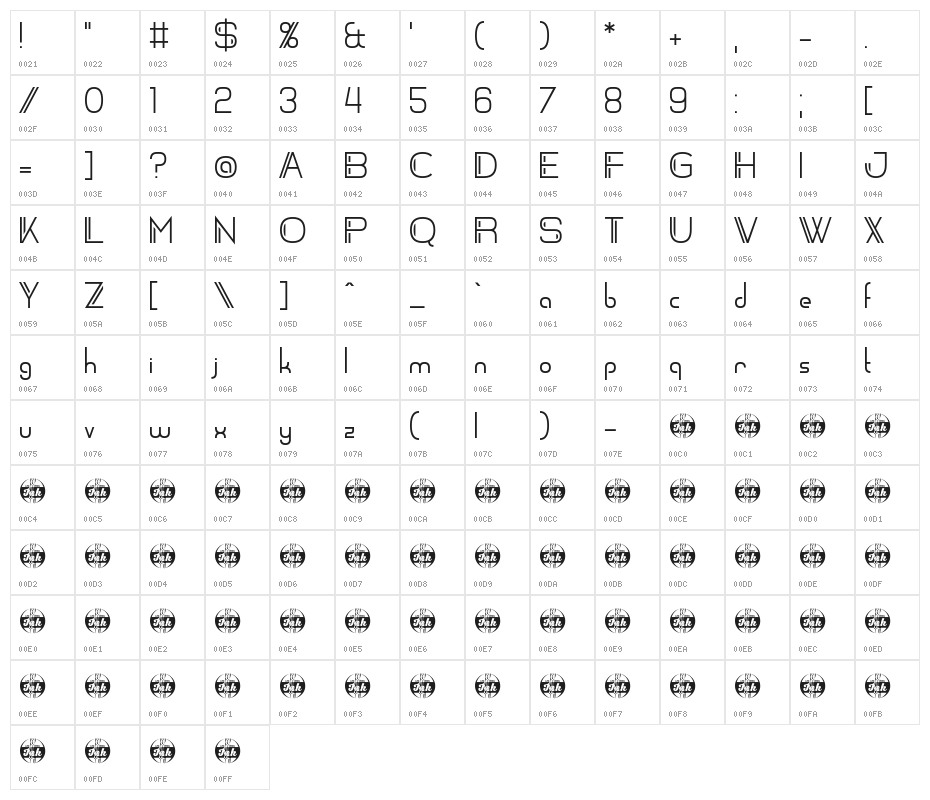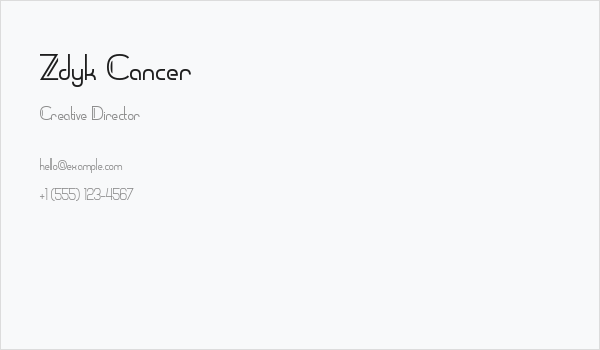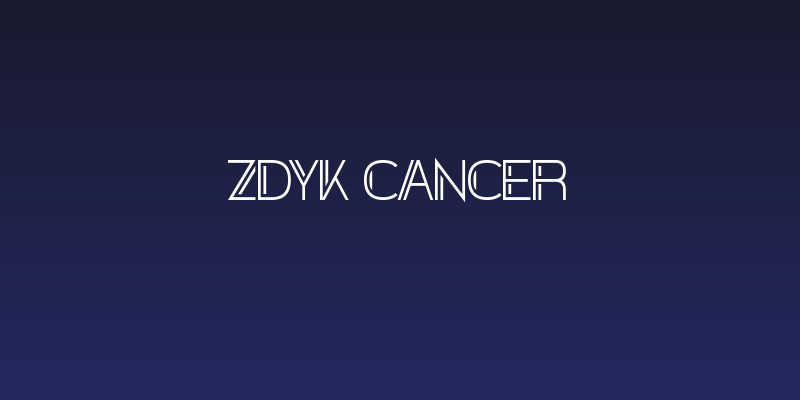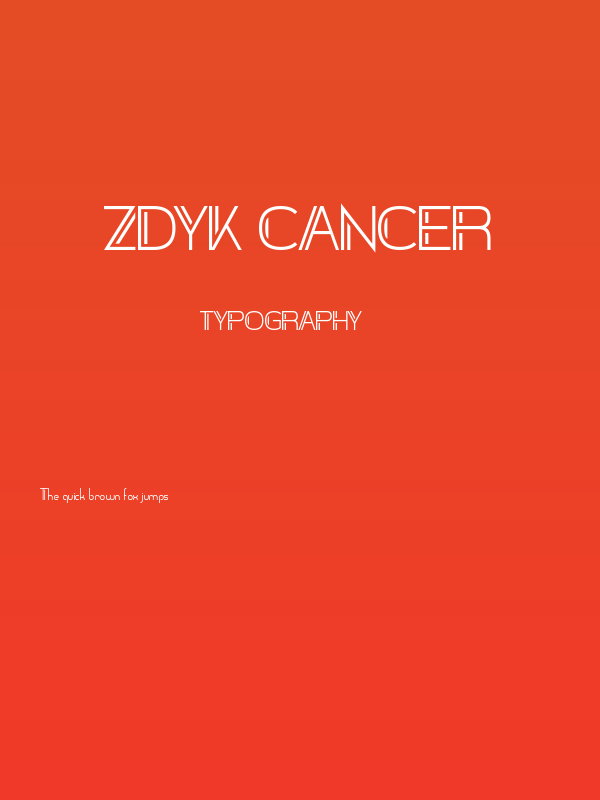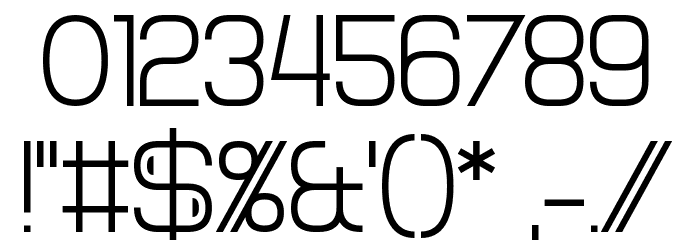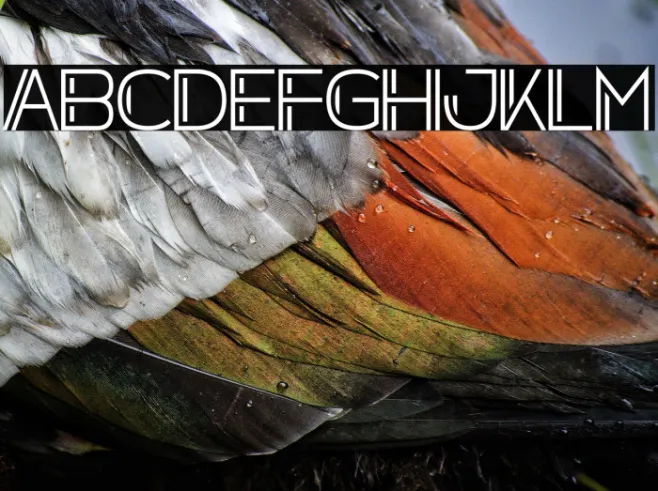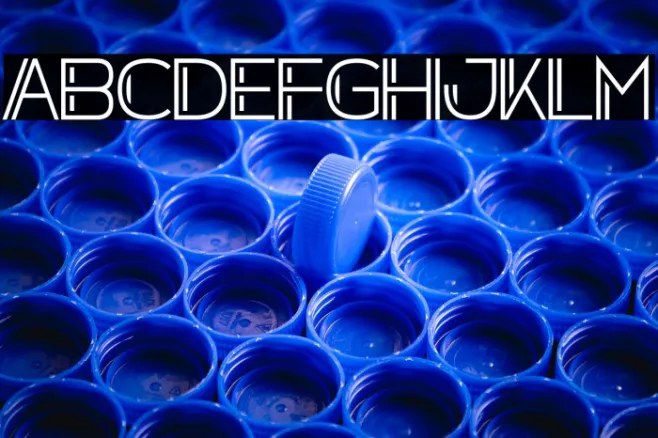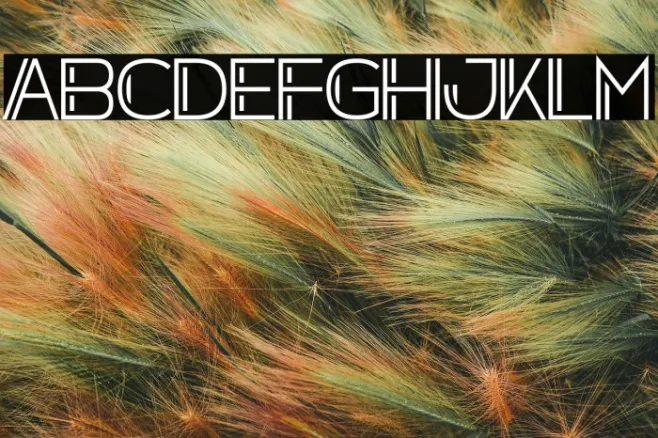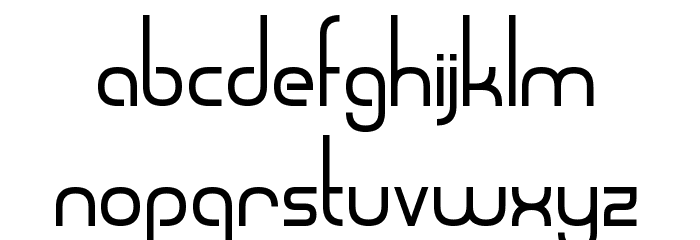
Zdyk Cancer Font
Zdyk Cancer Description
This font features a modern and geometric design with a distinctively futuristic feel. The uppercase letters are characterized by clean, straight lines and sharp angles, creating a sense of precision and clarity. The lowercase letters maintain a similar geometric style but with softer curves, providing a balanced contrast to the uppercase. The numerals are consistent with the overall design, offering a sleek and contemporary look. Special characters are uniquely styled, adding to the font's versatility. The overall appearance is both stylish and functional, making it suitable for a variety of design applications.